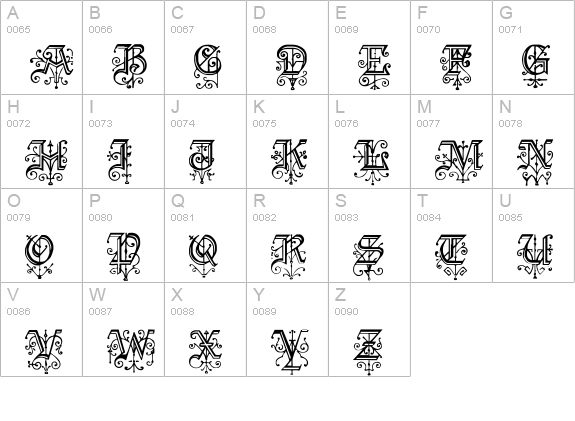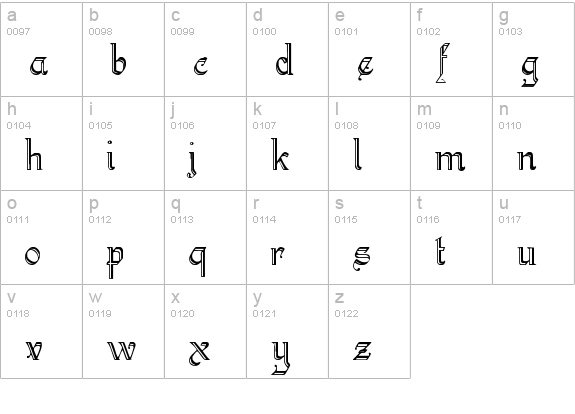
KellyAnnGothic Font Details
KellyAnnGothic is a stunningly elegant font that embodies the essence of Gothic artistry and modern design. With its intricate and ornate letterforms, this font captures the eye and adds a touch of sophistication to any project. The unique combination of sharp edges and delicate curves creates a harmonious balance that is both visually captivating and pleasing to read. Whether you're designing a logo, creating a poster, or crafting a wedding invitation, KellyAnnGothic is the perfect choice to make your work stand out. Its versatility allows for seamless integration into various design styles, from vintage to contemporary, ensuring that your creative vision is brought to life with utmost finesse. What makes KellyAnnGothic even more remarkable is that it is available for free download at FontsMarket.com. This means that you can access this exquisite font without any cost, making it an invaluable asset for both professional designers and enthusiasts alike. Its accessibility ensures that everyone can experience the beauty and elegance of KellyAnnGothic, regardless of their budget. So, why wait? Enhance your design projects with the enchanting allure of KellyAnnGothic. Download it today at FontsMarket.com and unleash your creativity without any limitations. With its free availability, this font is a true gift to the design community, allowing you to create stunning visual masterpieces with ease.